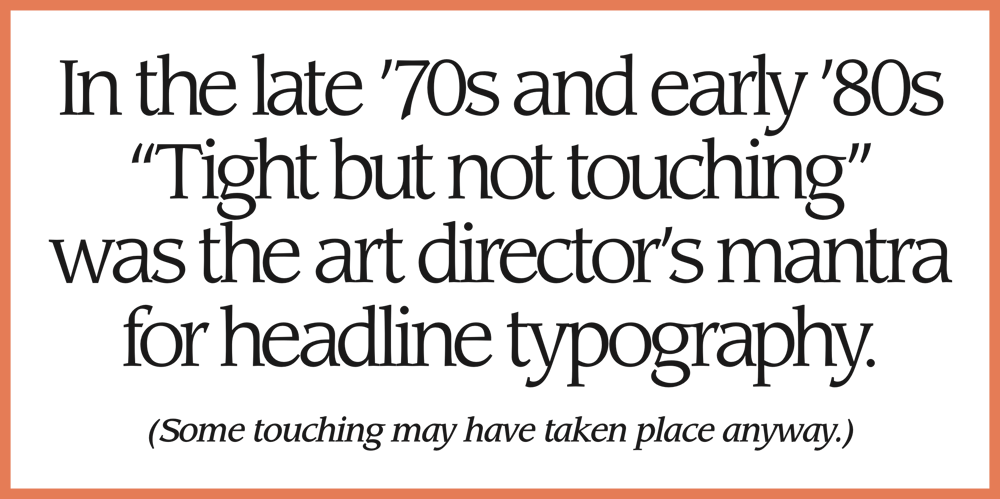
ITC Leawood Font Family was designed by Leslie Usherwood and published by ITC. ITC Leawood contains 8 styles and family package options. ITC Leawood was begun by designer Les Usherwood and finished by his talented staff at Typsettra in Toronto, Canada, after his untimely death. A similar calligraphic series to ITC Usherwood, following alternative options, the typeface features small, well-defined serifs which aid legibility and allow for close spacing.